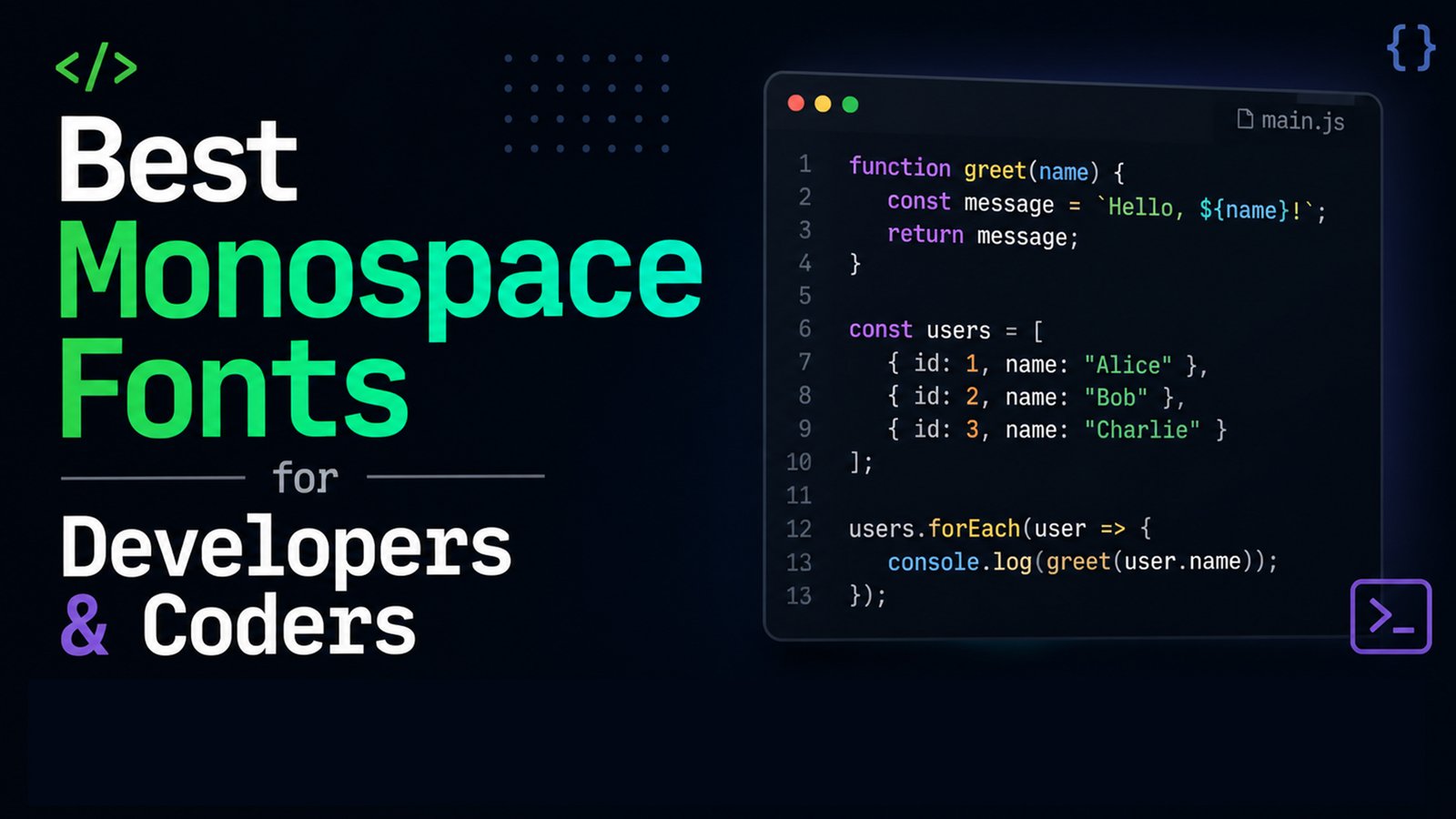
Choosing the right monospace font is crucial for developers and coders. A well-designed font enhances readability, reduces eye strain, and improves overall coding efficiency. In this article, we’ll explore some of the best monospace fonts available, highlighting their unique features and benefits.
JetBrains Mono: Optimized for Developers
JetBrains Mono is a free, open-source font specifically designed for developers. It features an increased x-height, making characters more distinguishable, and includes over 140 programming ligatures that combine commonly used symbols for better readability. This font is particularly effective in JetBrains IDEs but works well in other environments too.
Fira Code: Ligature-Rich Font
Fira Code extends the Fira Mono font by adding a comprehensive set of programming ligatures. These ligatures transform multi-character sequences into single, cohesive symbols, making code easier to read and understand. Fira Code is widely supported across various code editors and IDEs.
Source Code Pro: Versatile and Readable
Developed by Adobe, Source Code Pro is a monospaced font that offers a balance between aesthetics and functionality. It provides multiple weights and styles, allowing developers to customize their coding environment. The font’s design ensures clear distinction between similar characters, reducing the likelihood of errors.
Inconsolata: Clean and Elegant
Inconsolata is a monospaced font designed with a focus on clarity and legibility. Its clean design makes it suitable for both coding and terminal applications. The font’s characters are well-spaced, reducing visual clutter and enhancing the overall coding experience.
IBM Plex Mono: Professional and Modern
IBM Plex Mono is part of the IBM Plex family of fonts, designed to meet the needs of developers and designers alike. It offers a modern aesthetic with clear character differentiation, making it suitable for coding environments where readability is paramount.
Anonymous Pro: Distinctive and Functional
Anonymous Pro is a monospaced font that addresses the common issue of character ambiguity in coding. It ensures that similar-looking characters, such as ‘O’ and ‘0’, are easily distinguishable. This feature is particularly beneficial during long coding sessions.
Monoid: Compact and Customizable
Monoid is a compact, highly legible font that works well in coding environments. It offers a range of customization options, including support for Font Awesome icons, making it a versatile choice for developers who value both functionality and aesthetics.
Hack: No-Nonsense Readability
Hack is a monospaced font that focuses on readability and simplicity. It avoids ligatures and stylistic distractions, providing a clean and straightforward coding experience. Hack is especially effective in terminal applications and low-resolution displays.
Choosing the Right Font for Your Needs
When selecting a monospace font, consider the following factors:
- Readability: Ensure the font makes it easy to distinguish between similar characters.
- Ligatures: Decide if you prefer ligatures that combine symbols for improved readability.
- Customization: Look for fonts that offer various weights and styles to suit your preferences.
- Environment Compatibility: Choose a font that works well in your preferred code editor or IDE.
Experimenting with different fonts can help you find the one that best fits your coding style and enhances your productivity.
FAQ
What is a monospace font?
A monospace font is a typeface in which each character occupies the same amount of horizontal space. This uniformity is particularly useful in coding, as it ensures consistent alignment and readability.
Why are ligatures important in coding fonts?
Ligatures combine multiple characters into a single symbol, making code easier to read and understand. They can reduce visual clutter and help developers quickly recognize common patterns.